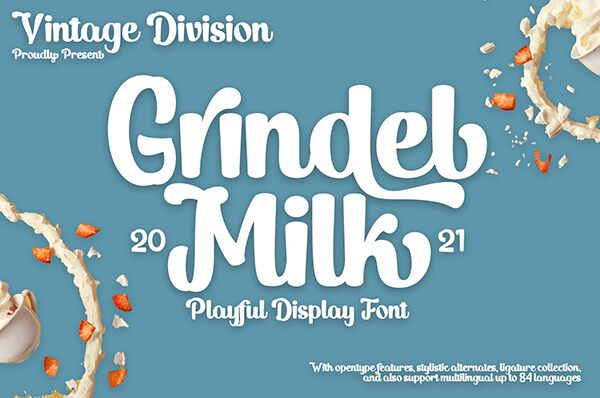
Grindel Milk font is a playful display font designed by Din Studio.
Grindel Milk is a display font designed to bring your branding to life and add a touch of elegance, cheerful, and style. We are hoping that through this playful font, you can maximize your designs! In turn, youll communicate the perfect idea to your audiences or clients. The best choice for branding projects, book/magazine cover, fashion designs, quotes, packaging, or even as a stylish text overlay to any background image.